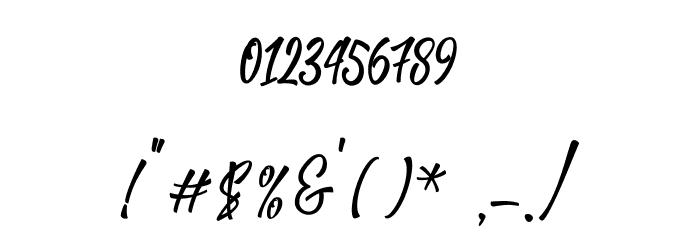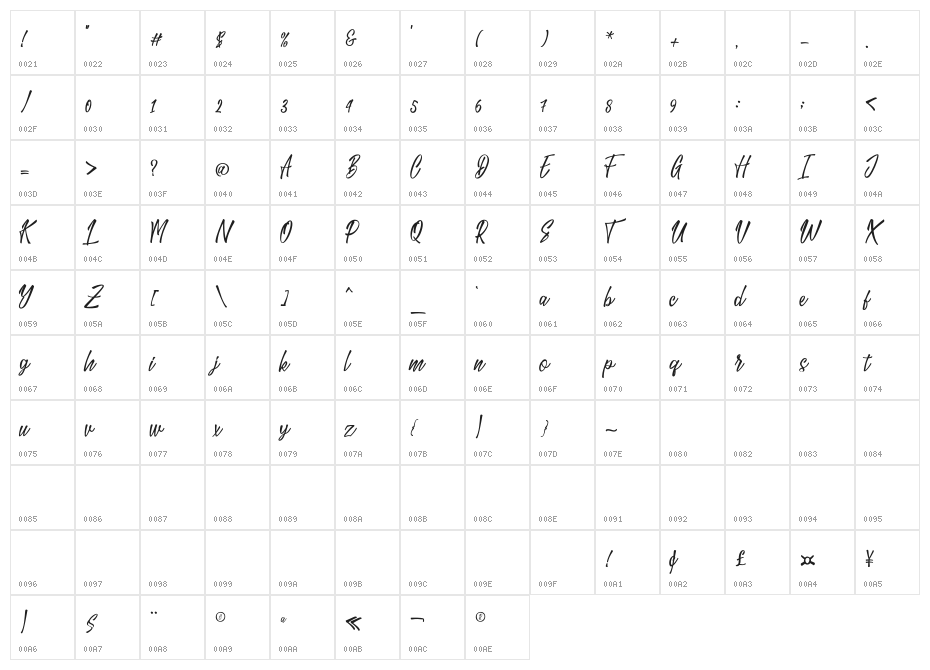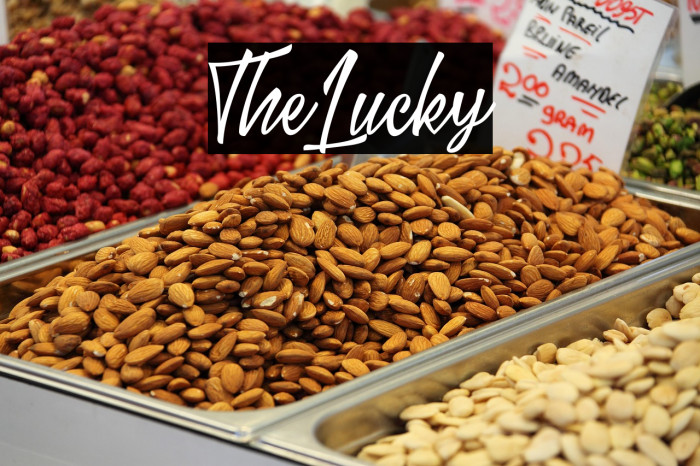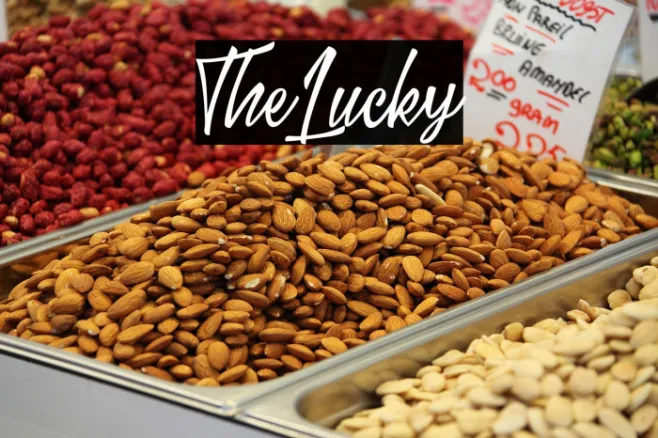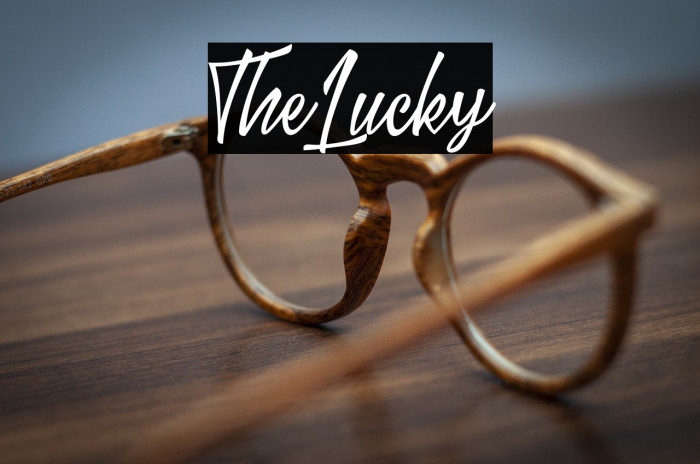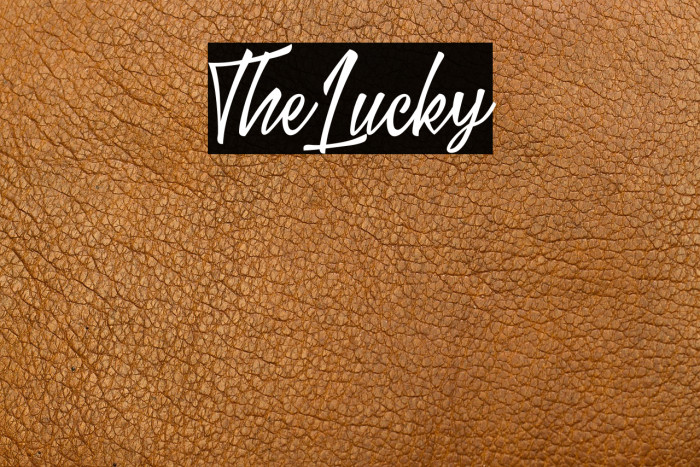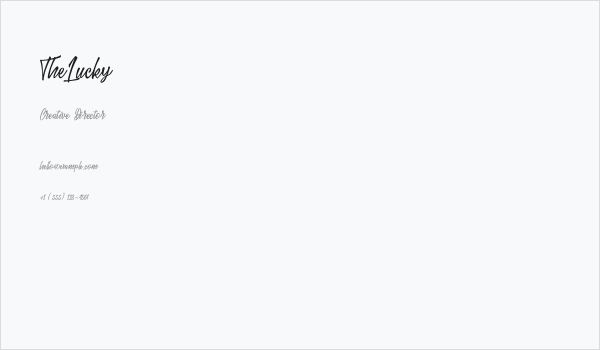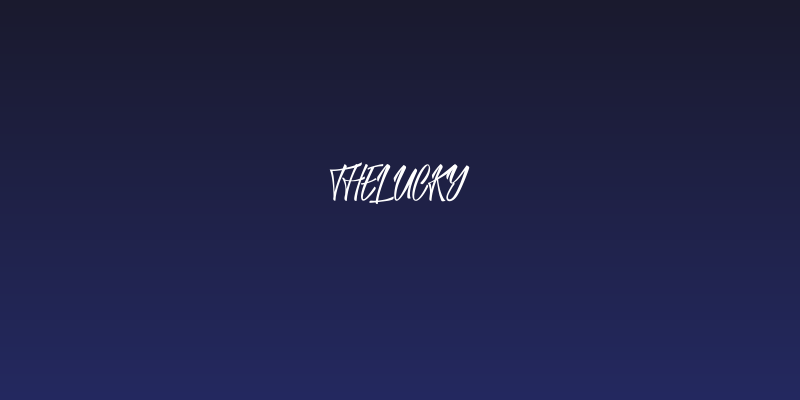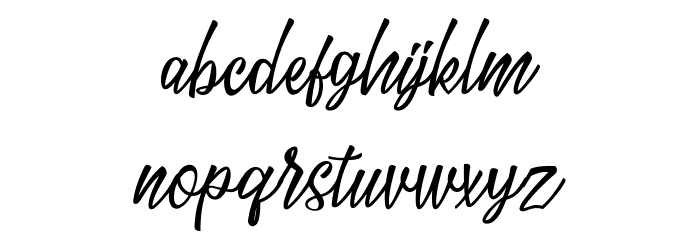
TheLucky Font
TheLucky Description
This font features a dynamic and expressive script style, characterized by fluid, cursive strokes that convey a sense of elegance and sophistication. The uppercase letters are bold and slightly slanted, giving them a sense of movement and flair. The lowercase letters maintain a consistent flow, with smooth connections between characters, enhancing readability while retaining a stylish appearance. The numerals and special characters are designed to complement the overall aesthetic, with a similar cursive flair that ties the entire set together. This font is ideal for projects that require a touch of elegance and personality.
| Overall Style | Elegant, Expressive |
| Proposed Projects | Ideal for wedding invitations, branding, greeting cards, and elegant signage. |